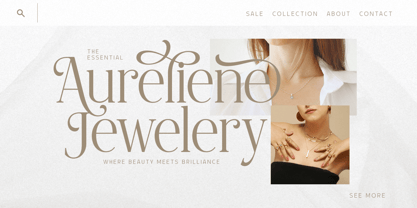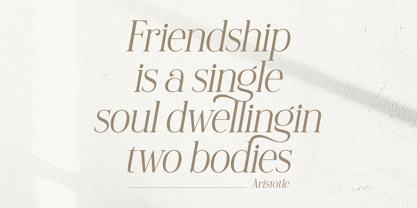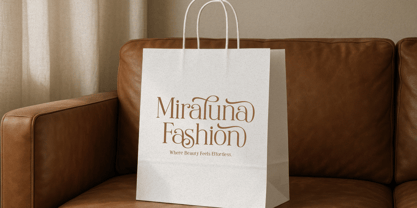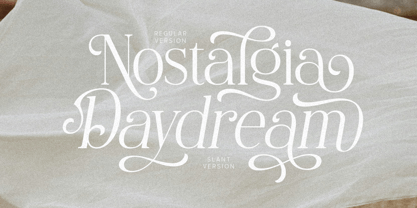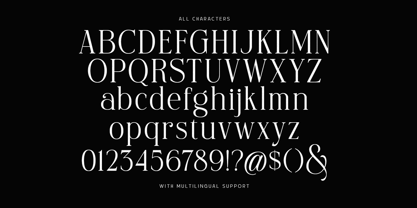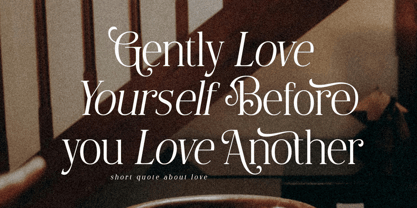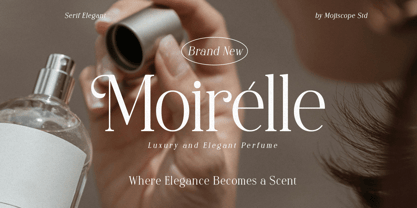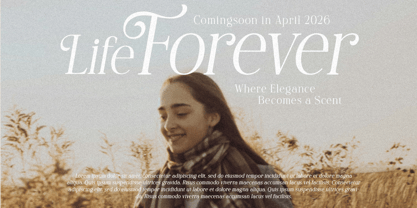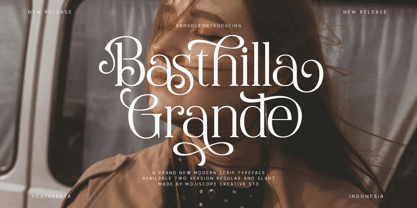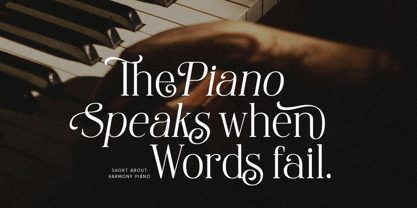
Basthilla Grande
The Basthilla Grande Font Family and published by Mojiscope Studio. Basthilla Grande contains 2 styles and family package options. More about this family
Proudly introducing Basthilla Grande, a brand-new modern serif typeface that perfectly. This font is more than just letters; it is a visual experience. Every curve of Basthilla Grande is crafted to captivate. With its unique swashes, flowing ligatures, and high-contrast strokes, this font transforms ordinary text into an artistic masterpiece. Whether you are aiming for a sophisticated editorial look or a chic brand identity, Basthilla Grande delivers effortless style. Why You’ll Love Basthilla Grande: - Distinctive Ornaments: Features gorgeous swashes and alternates that allow you to customize your typography to fit your design perfectly. - Versatile Dual Styles: Comes in Regular and Slant versions, giving you the flexibility to mix and match for headers, subheads, and body text. - Luxury Feel: Instantly adds a high-end, bespoke feel to any project.